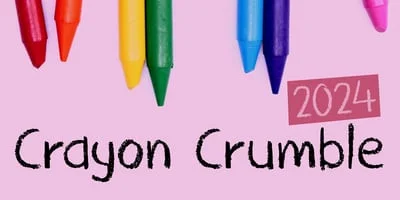
Crayon Crumble 2024 Font
Crayon Crumble 2024 Font is perfect for children's book illustrations, educational materials, daycare center branding, kids' product packaging, birthday party invitations, preschool signage, craft project designs, and playful social media content. This delightful typeface excels in projects requiring childlike wonder and creative expression where imagination meets authentic handmade charm.
What makes Crayon Crumble 2024 Font exciting is its authentic recreation of children's crayon artwork with genuine texture and innocent imperfections that capture the pure joy of childhood creativity. The font features wonderfully irregular letterforms with crayon-like textures and crumbly edges that evoke memories of first attempts at writing and drawing. Its playful character makes it perfect for brands and projects celebrating childhood, creativity, and the magic of learning through play.
Crayon Crumble 2024 Font family includes various textural variations and playful alternatives that enhance its childlike appeal and provide creative flexibility for educational projects. The family typically offers different crayon textures, alternate characters with varying crumble effects, and colorful decorative elements that complement children's design themes and educational materials perfectly.
Whether you're designing children's educational apps, creating daycare marketing materials, or developing kid-friendly product branding, Crayon Crumble 2024 Font provides the perfect playful solution for projects targeting young audiences and families. This font's innocent charm and authentic crayon aesthetic make it essential for connecting with children and parents who value creativity and imaginative learning experiences.
The authentically textured letterforms and delightful irregularities of Crayon Crumble 2024 Font create an immediate emotional connection that brings out the child in everyone while maintaining excellent readability for educational purposes. Its distinctive crayon personality and updated 2024 design make it an invaluable tool for educators, children's brands, and family-focused organizations. Download Crayon Crumble 2024 Font today and bring the innocent joy of childhood creativity to your projects with this authentically charming crayon-inspired typeface.